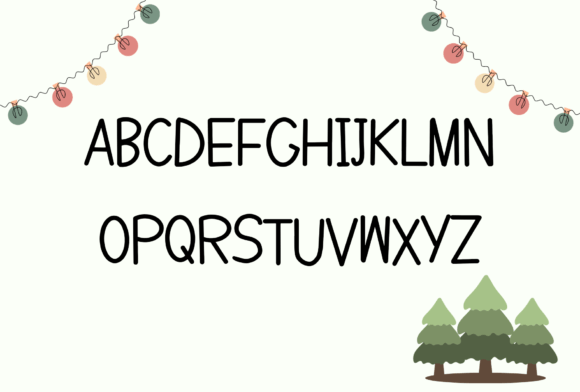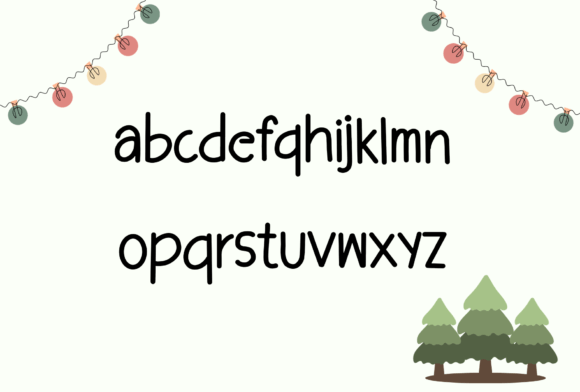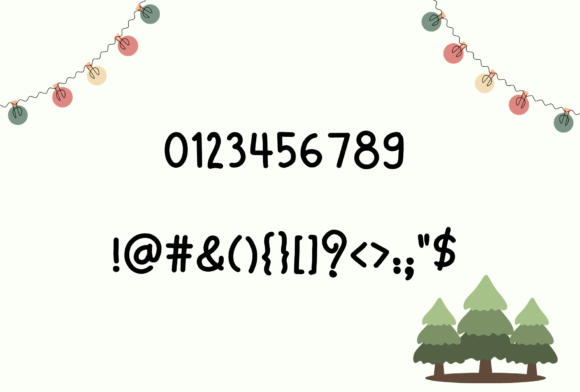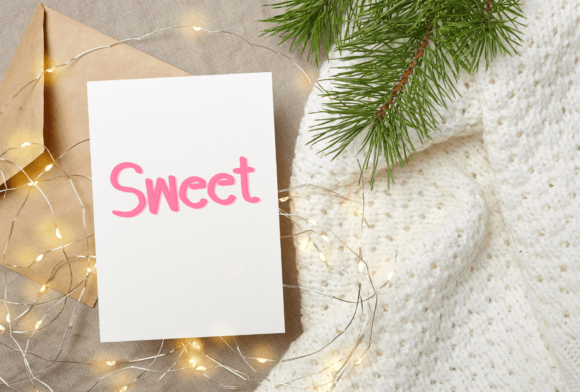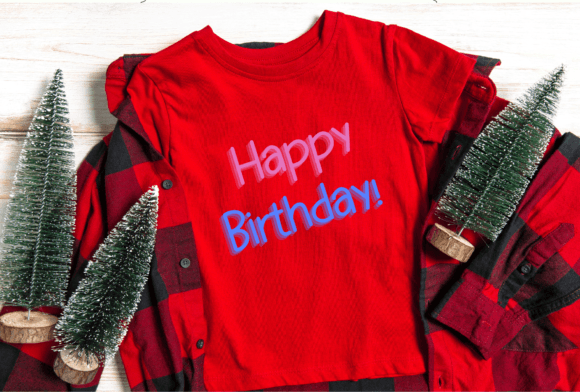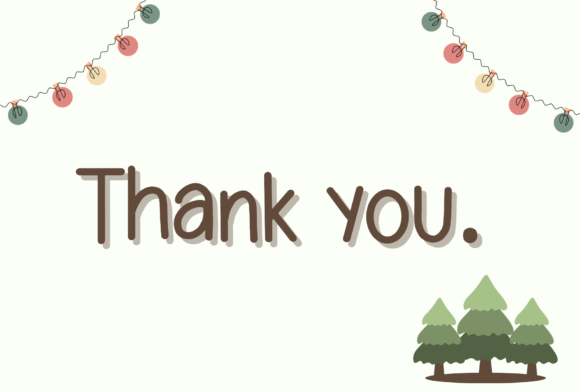
The Magic of Christmas Baby Font: A Designer’s Delight
I still remember the holiday season a few years ago when I was working on a festive project for a client. I had to create a Christmas-themed presentation, and I was struggling to find the perfect font that would capture the essence of the season. The client wanted something cheerful, playful, and elegant all at once. After hours of browsing through font libraries, I stumbled upon the Christmas Baby font, and it was love at first sight! ✨
The Christmas Baby font offers a delightful and charming handwriting style, making it a perfect choice for various applications, including presentations, education materials, advertising, and illustrations. Its versatility and simple design make it a superb option for display fonts, bringing a sense of happiness and joy to your projects. Additionally, it’s well-suited for stickers and multi-purpose design applications, enhancing the festive spirit.
- ✨ The font’s handwriting style is incredibly charming and festive, perfect for holiday projects.
- ✅ It’s highly versatile and can be used for various applications, from presentations to stickers.
- 🎉 The font’s simple design makes it easy to read and understand, even at smaller sizes.
While the Christmas Baby font is a delightful addition to any project, there are a few quirks to be aware of: 🤔
- ⚠️ The font may not be suitable for body text or lengthy content, as it’s primarily designed for display purposes.
- ⚠️ Some users may find the font a bit too playful or childish for certain projects.
The Designer Inspiration Behind Christmas Baby Font
The Christmas Baby font was designed with the goal of capturing the magic and joy of the holiday season. The designer aimed to create a font that’s both playful and elegant, making it perfect for a wide range of applications. The font’s charming handwriting style is reminiscent of handwritten holiday cards and decorations, adding a personal touch to any project.
| Font Name | Christmas Baby Font |
| Author | Candygirl Art |
Q: What is the Christmas Baby font best suited for?
A: The Christmas Baby font is best suited for holiday-themed designs, presentations, education materials, advertising, and illustrations.
Q: Can I use the Christmas Baby font for body text or lengthy content?
A: While the Christmas Baby font can be used for body text, it’s primarily designed for display purposes and may not be the best choice for lengthy content.